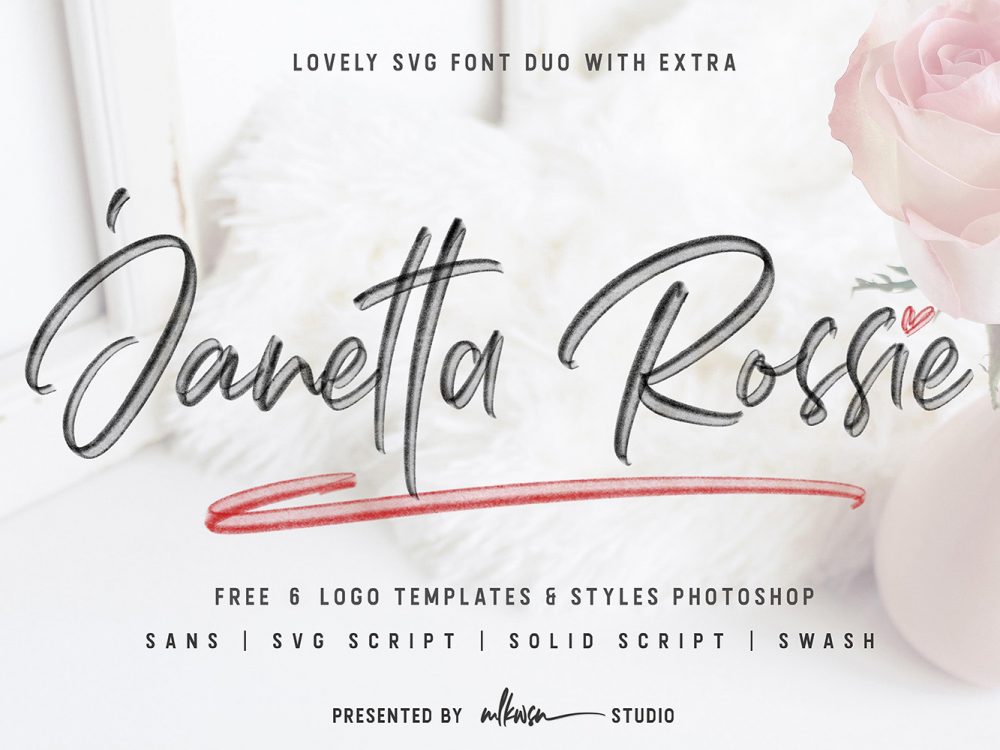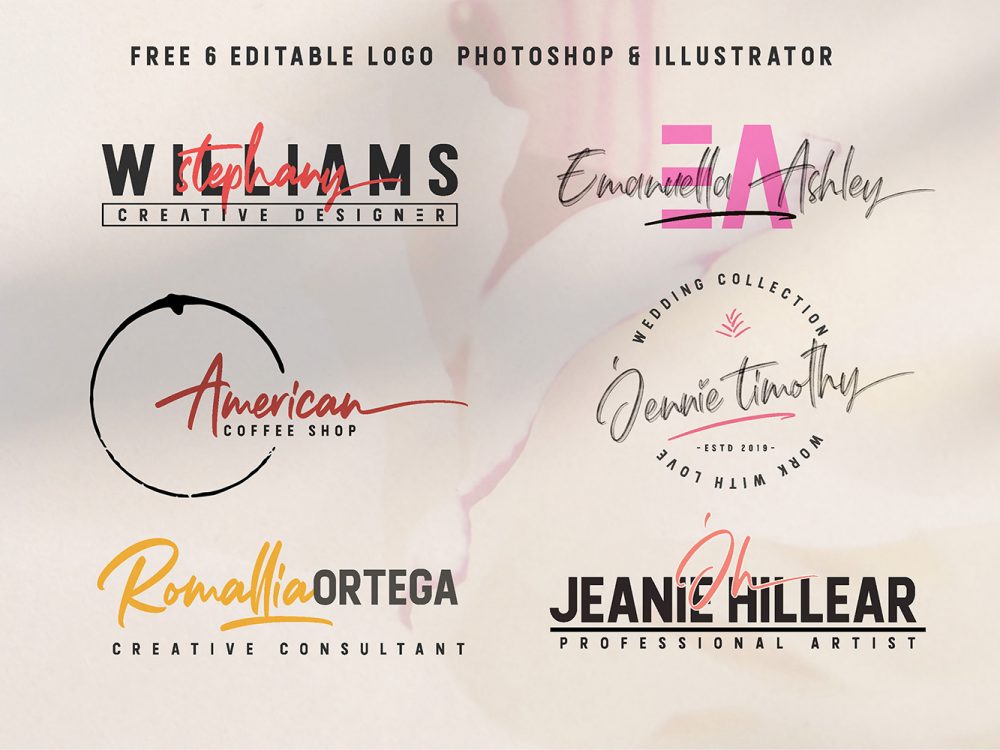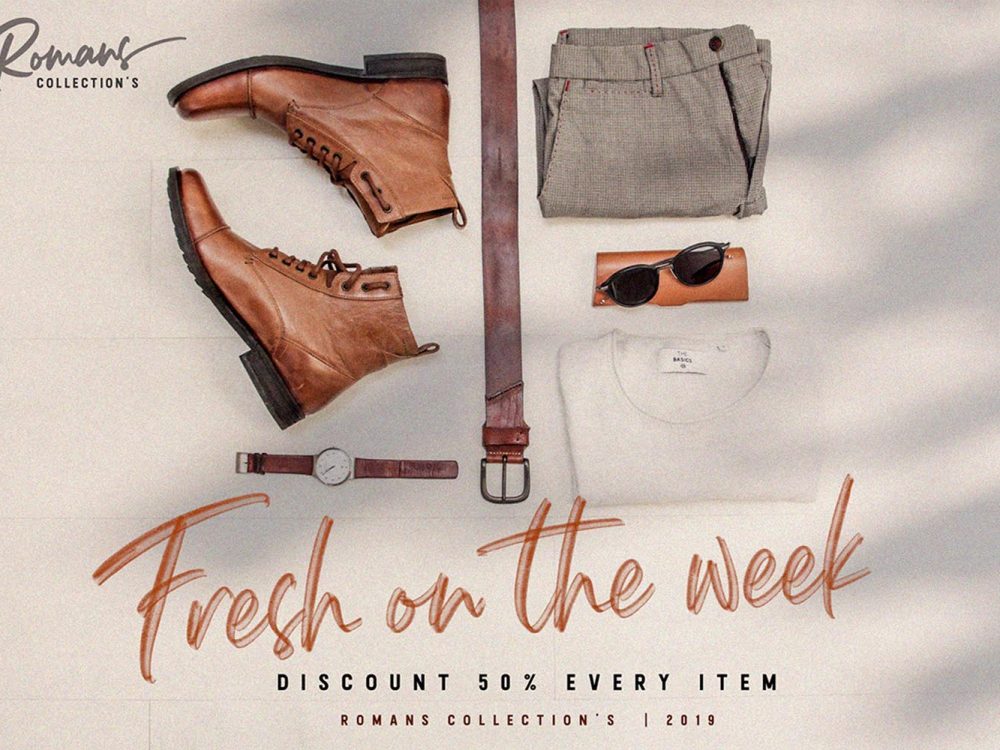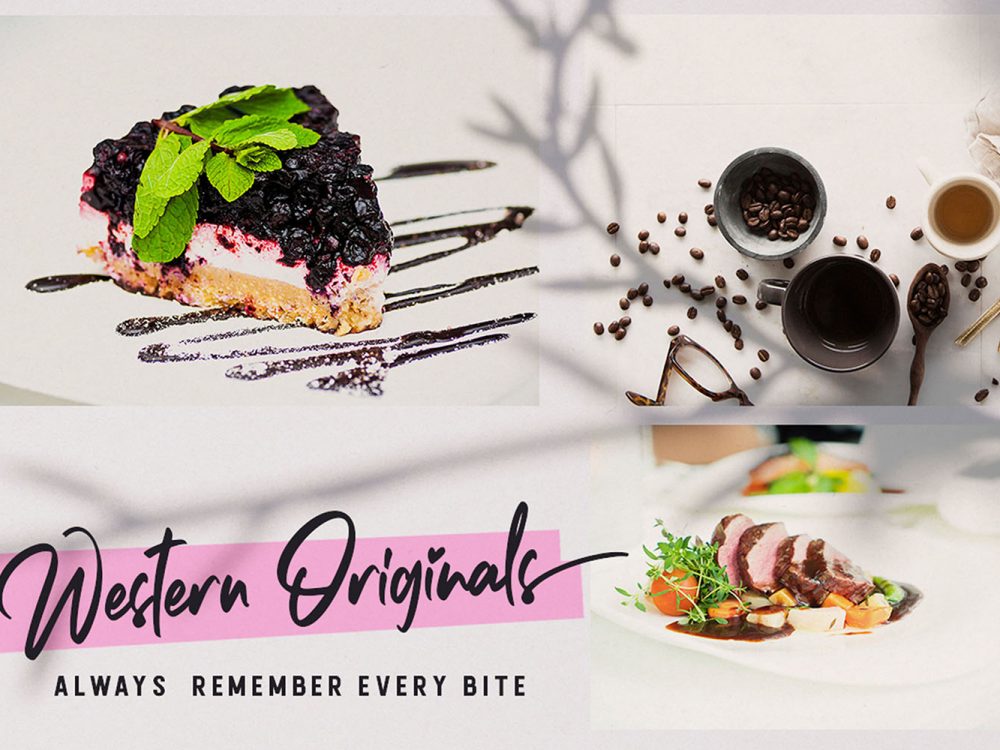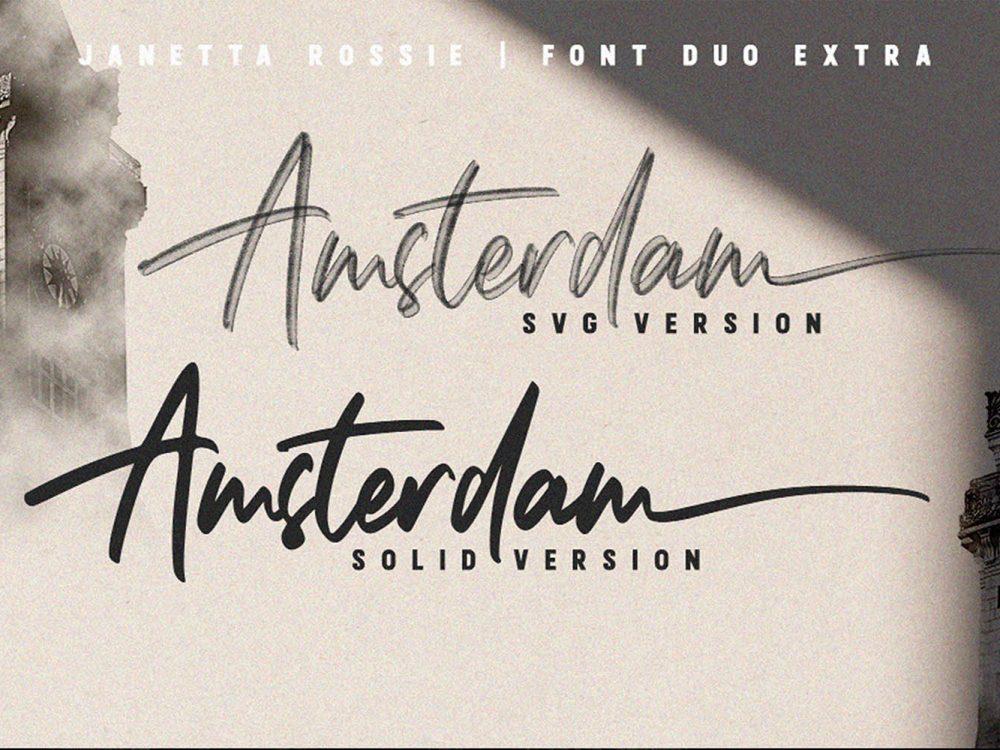
Janetta Rossie Free Font
Janetta Rossie Free Font is a scripted calligraphic handwritten font that mimics brush writing in a modern style. This font contains a lowercase, uppercase, symbol, and also supports multi-language and more ligatures and is well suited for various design projects that require a handwritten script font. You can use this font to create memorable posters, wedding invitations, cards, branding, flyers, and more. If you like it don’t forget to check out the full version.